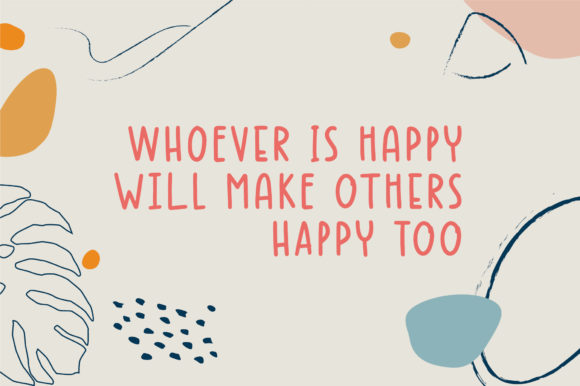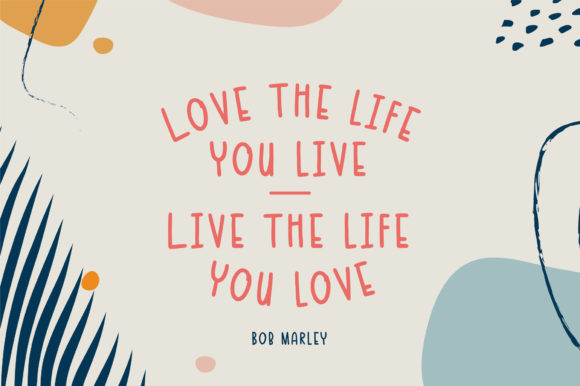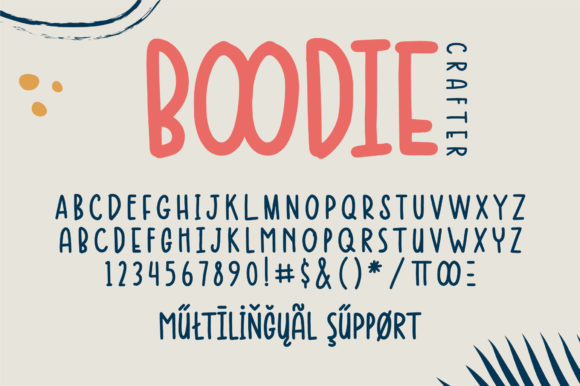
Discover the Magic of Handcrafted Design with Boodie Crafter Font
Remember that moment when you stumbled upon the perfect font, and suddenly your design project transformed from dull to dazzling? For many designers, that ‘aha’ moment is what drives creativity and inspires new ideas. For those who crave that special something, we’re excited to introduce the Boodie Crafter Font – a charming, vintage-styled display font that brings a touch of playfulness to any design project.
Whether you’re crafting greeting cards, designing digital presentations, or creating handmade products, Boodie Crafter Font is the perfect companion. Its neat and elegant style makes it versatile enough to fit a variety of design ideas, from whimsical to sophisticated. As a designer, you’ll appreciate the value of this font in adding a unique touch to your work, making it stand out from the crowd.
Boodie Crafter Font Key Features
- Unique Characteristics: Hand-drawn and hand-painted style, perfect for creative and artistic projects, comes with a set of unique ornaments and flourishes
Boodie Crafter Font Review
Overall, I’m quite impressed with the Boodie Crafter font. It has a playful, hand-drawn feel that’s perfect for creative projects, especially those involving children’s content or DIY crafts. ✨ The font’s quirky charm is undeniable, and it’s easy to see why it’s become a popular choice among designers.
- Unique, hand-drawn style that sets it apart from more generic fonts
- Perfect for projects involving children, crafts, or DIY tutorials
- Easily readable, even at smaller font sizes
- Works well in both digital and print applications
- May not be suitable for formal or professional applications
- Some characters may not be fully formed or consistent in design
- Limited language support, which may be a concern for designers working with non-English content
- May not be as versatile as other fonts in terms of font sizes and styles
Overall, I’d give the Boodie Crafter font 4 out of 5 stars. While it’s not perfect, its unique style and charm make it a great choice for the right projects. Just be aware of its limitations and use it accordingly.
The Boodie Crafter Font is ideal for crafting and DIY-related designs, such as invitations, party decorations, and craft project templates. It’s also great for creating unique and personalized gifts, like custom t-shirts and mugs.